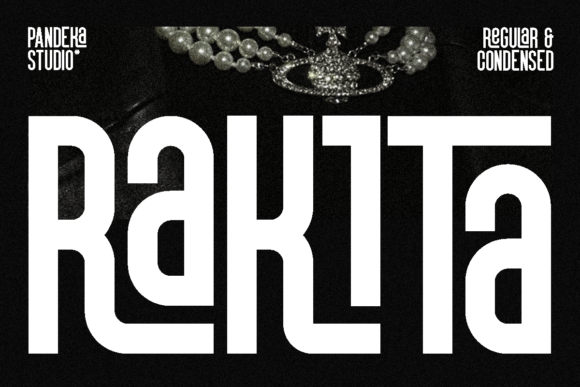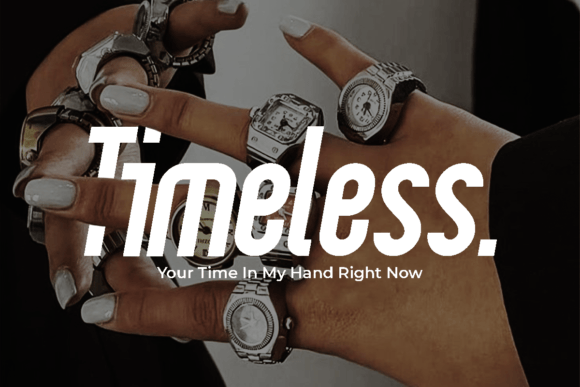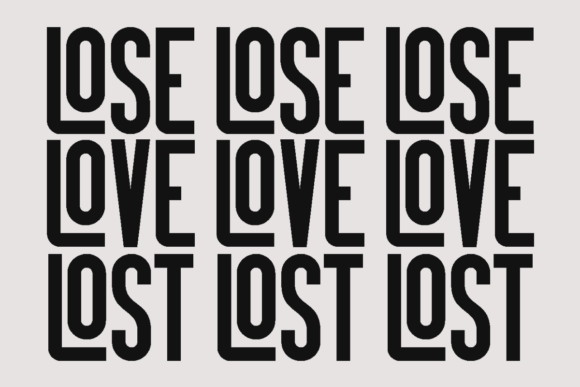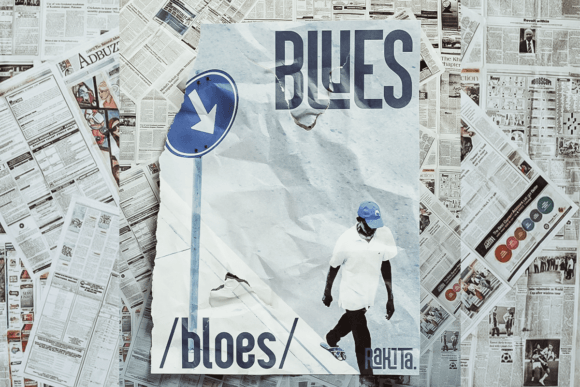
Rakita Font: Modern Minimalist Sans Serif for Logo Design & Branding
About the Rakita Font
We are excited to introduce Rakita Font, a must-have typeface for any serious designer. Rakita is a cool, sleek sans-serif font that exudes modernity and sophistication. With clean lines and a minimalist design, it strikes the perfect balance between elegance and contemporary style. Ideal for projects seeking a refined aesthetic, Rakita delivers a polished and professional appearance across various applications.
Rakita’s clean lines and geometric structure make it exceptionally suitable for headlines, logos, and short-form text in branding materials and posters. Its modern aesthetic also lends itself well to minimalist packaging designs and website headers. However, its sleekness might prove less effective for body text or long paragraphs, potentially hindering readability.
For a sophisticated pairing, consider complementing Rakita with a classic serif like Garamond or a warmer, slightly rounded sans-serif such as Lato. If a more playful feel is desired, a handwritten script font could add a touch of personality without overwhelming Rakita’s inherent elegance.
Rakita projects a confident, modern, and minimalist personality. It’s best suited for brands aiming for a polished and sophisticated image, conveying authority and a sense of refined simplicity.